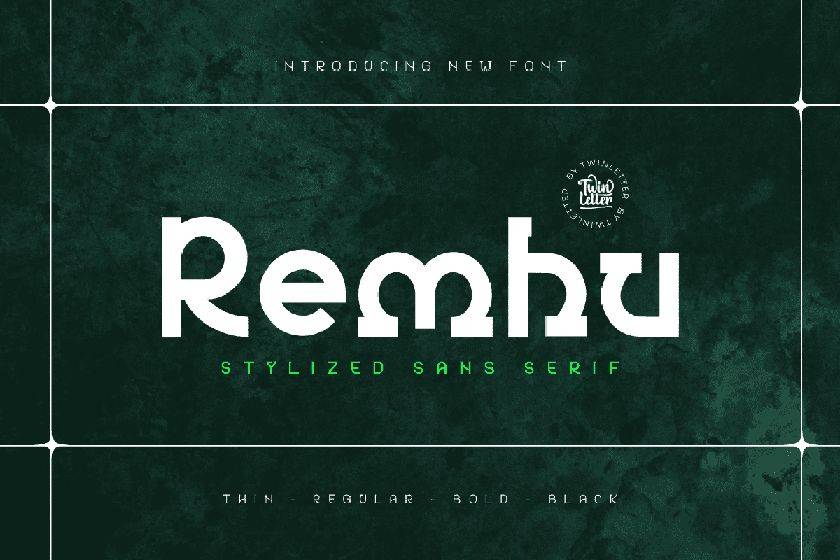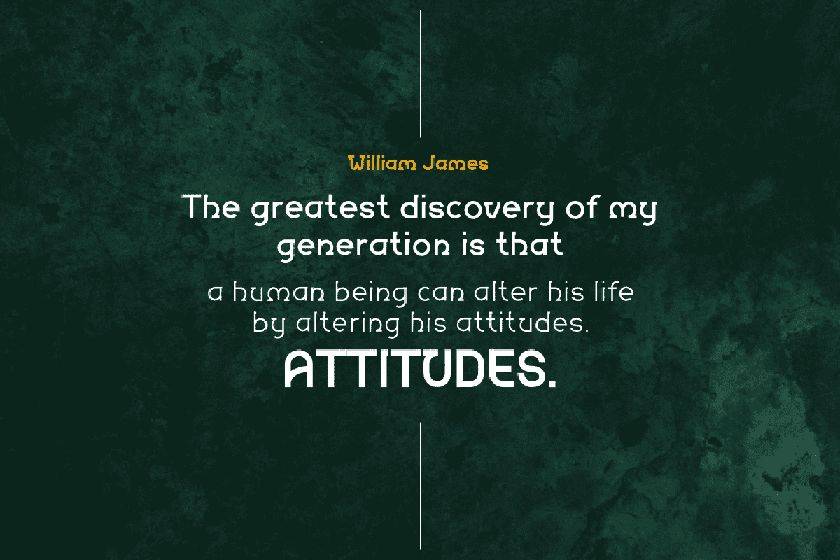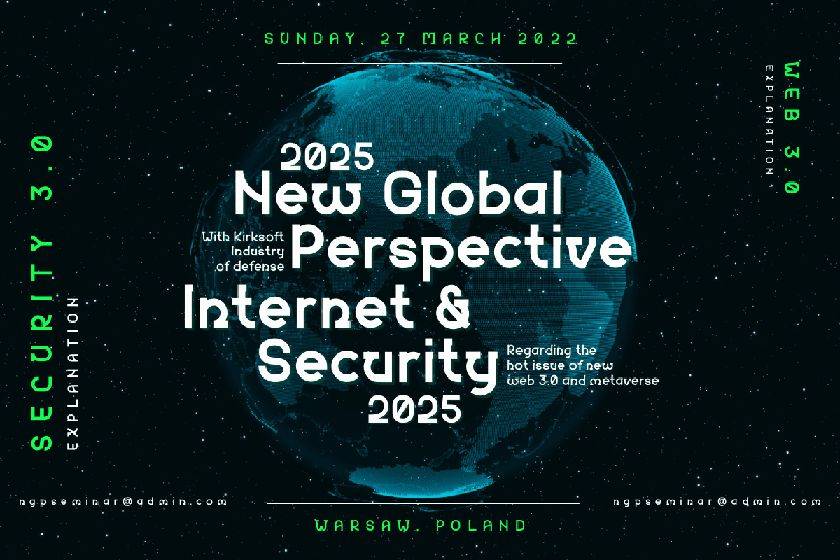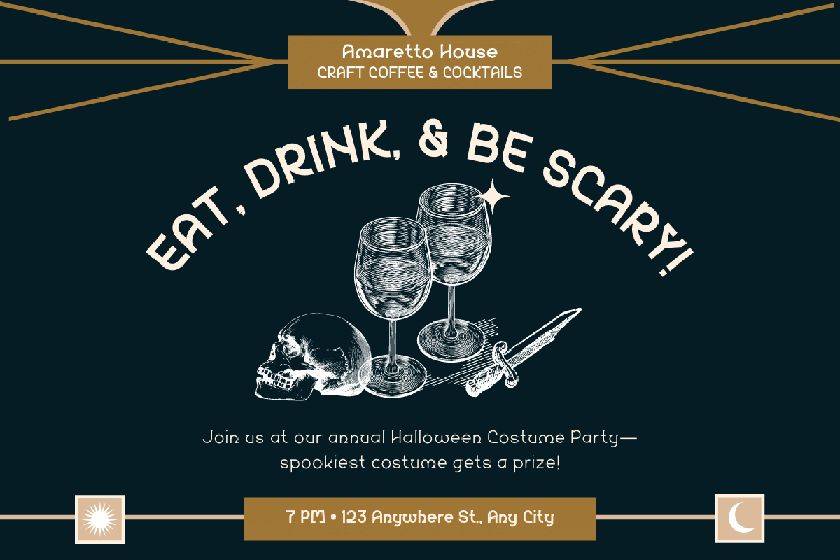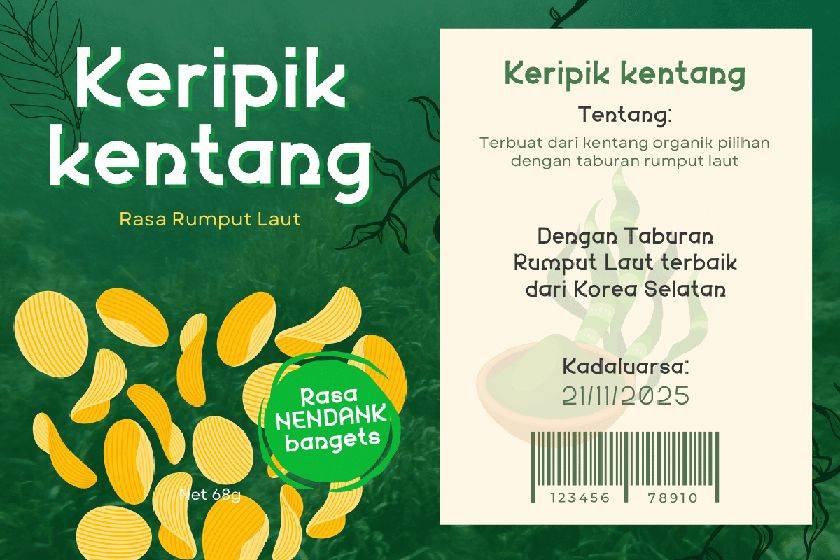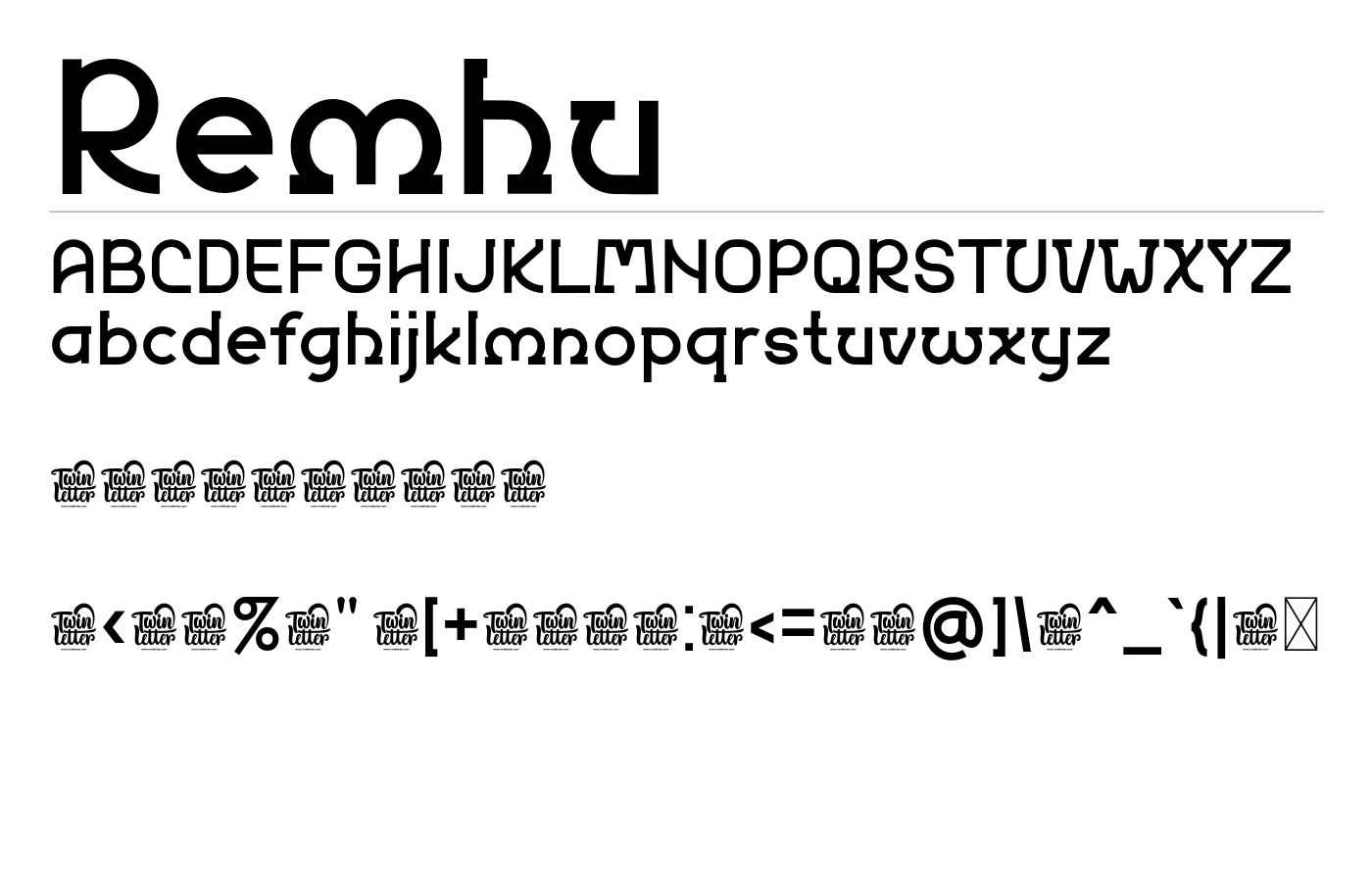
Remhu is a distinctive sans serif font featuring a playful, geometric style with unique letter shapes and sharp angles that add a modern, creative flair. Its medium weight and condensed width give it a strong presence while maintaining readability, making it ideal for eye-catching headlines, branding, and design projects seeking a contemporary yet quirky look. This font works well where individuality and artistic expression are desired, especially in logos, posters, and editorial designs.
Remhu Font
About Remhu Font
| Font family | Remhu Font |
| Release date | 2022-01-23 |
| Designer | afri |